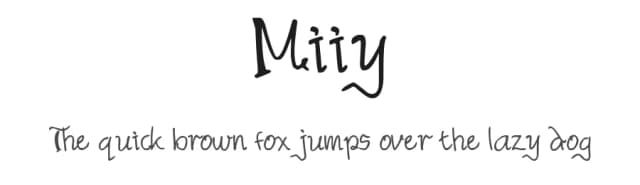
About Fairy Strange Font
Fairy Strange is a script & handwritten font designed by imagex. It includes 104 glyphs, a regular weight, TTF (TrueType) format, and 107 languages. Fairy Strange is free to download; check the license details on this page before commercial use. Script & handwritten fonts like Fairy Strange work best for wedding invitations, greeting cards, signatures, and elegant branding.
Fairy Strange Font is a script font that shines as a display or heading face. Pair it with a clean sans-serif or serif font for body text β the contrast creates a clear hierarchy while the two styles stay balanced and easy to read.